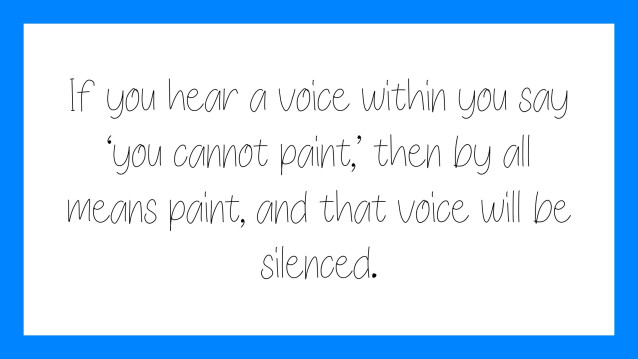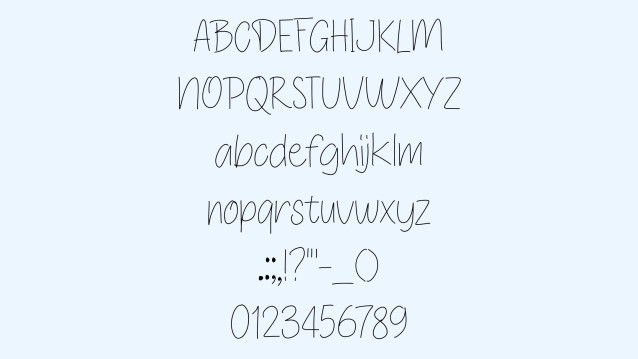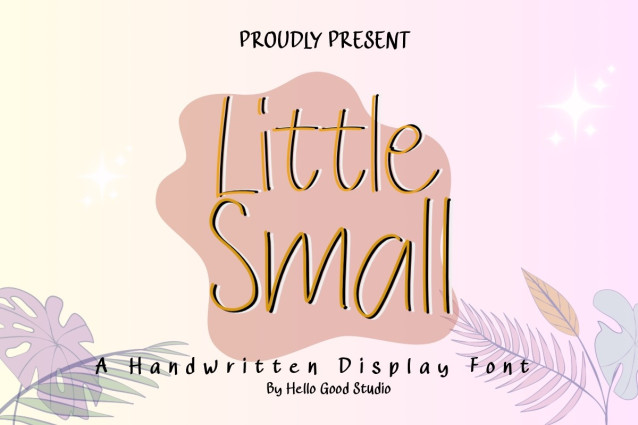
Little Small Font
Little Small Font is a simple and friendly handwritten font. Its natural and unique style makes it incredibly fitting to a large pool of designs. The only limit is your imagination!